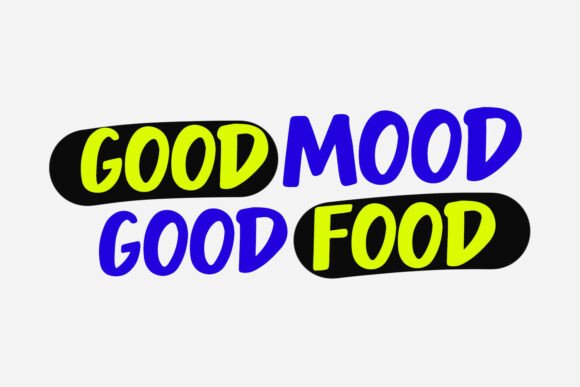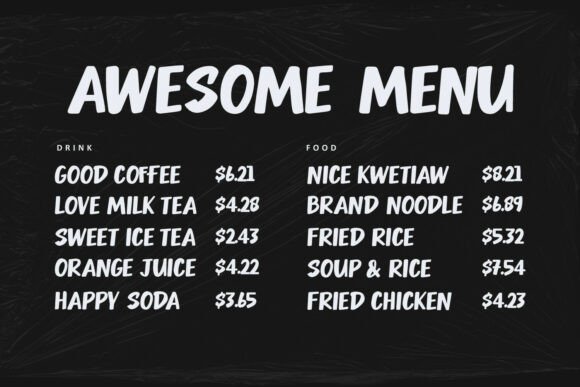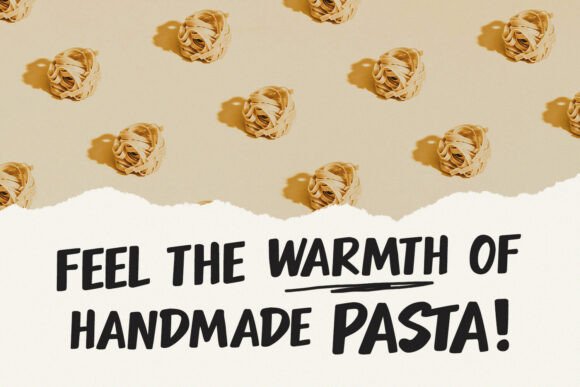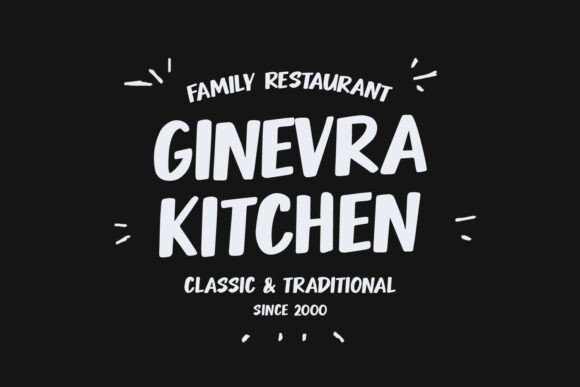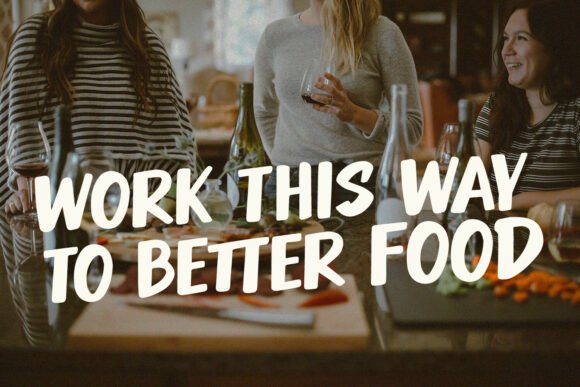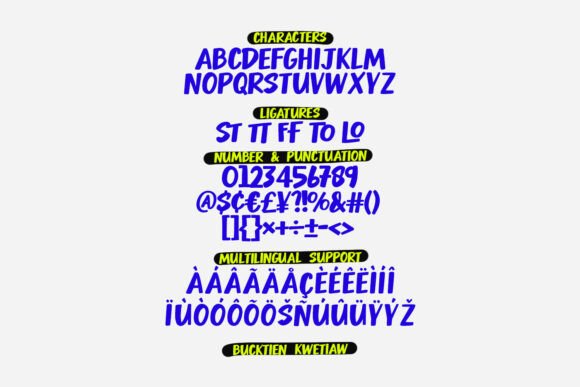
Unlocking the Power of Bucktien Kwetiaw Font: A Designer’s Dream Come True
Have you ever been in the middle of a design project, and suddenly, you’re stuck on finding the perfect font? I recall a recent experience where I was working on a vibrant food packaging design, and my client requested a font that was not only fun but also highly legible. After scouring through numerous font libraries, I stumbled upon Bucktien Kwetiaw, a stunning display font that instantly captured the playful and energetic vibe I was looking for.
Bucktien Kwetiaw is more than just a font – it’s a design statement. With its thick, hand-rendered strokes and charmingly irregular baseline, this font embodies a friendly, “pop-art” aesthetic that’s sure to make your designs stand out. In this article, we’ll dive into the world of Bucktien Kwetiaw, exploring its features, uses, and everything in between.
- ✅ High-impact branding: Bucktien Kwetiaw is specifically designed for bold, eye-catching designs that demand attention.
- ✅ Handcrafted feel: The font’s irregular baseline and hand-rendered strokes give it a unique, professional yet approachable vibe.
- ✅ Maximum readability: Its heavyweight ensures that your text remains clear and legible, even at larger font sizes.
- ✅ Versatility: Perfect for various design projects, from food packaging to children’s book titles, social media graphics, and more.
- ⚠️ Limited use cases for body text: Due to its bold nature, Bucktien Kwetiaw might not be the best choice for lengthy body text.
- ⚠️ Glyph limitations: As with any font, some special characters or glyphs might not be available or might require additional setup.
- Experiment with OpenType features, such as stylistic alternates, to add more flair to your text.
The Story Behind Bucktien Kwetiaw: Designer Inspiration
Bucktien Kwetiaw’s story begins with a passion for creating unique, hand-crafted designs that bring joy to people’s lives. Its designer aimed to craft a font that would not only stand out but also evoke a sense of friendliness and approachability. Inspired by pop art and street food culture, Bucktien Kwetiaw was born – a font that’s equal parts bold, playful, and professional.
Q: What type of projects is Bucktien Kwetiaw best suited for?
A: Bucktien Kwetiaw excels in high-impact branding, food packaging, children’s book titles, social media graphics, and bold designs.
Q: Can I use Bucktien Kwetiaw for body text?
A: While possible, Bucktien Kwetiaw’s bold nature makes it more suitable for headings and titles. For body text, consider a complementary font with better readability.
Q: Does Bucktien Kwetiaw support OpenType features?
A: Yes, Bucktien Kwetiaw supports OpenType features, including stylistic alternates and glyphs, which can be accessed on compatible design platforms.